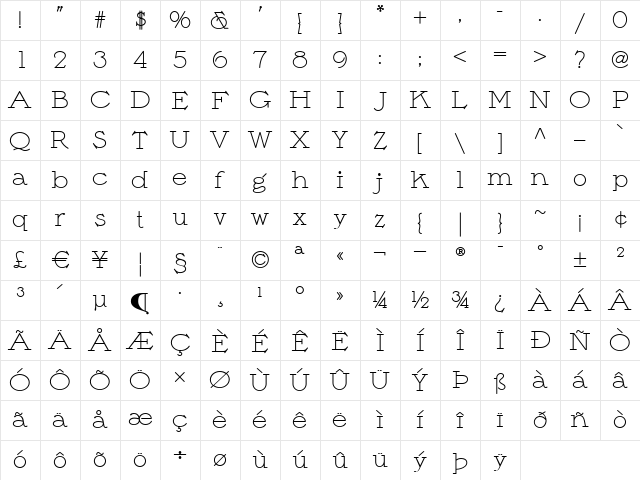
Saturday Morning Monotone NF Regular
Foundry: Nick's Fonts
Designer: Nick Curtis
Design Context for Saturday Morning Monotone NF
Saturday Morning Monotone NF uses fixed-width spacing throughout, giving it the structured, systematic character associated with coding environments and technical documentation.